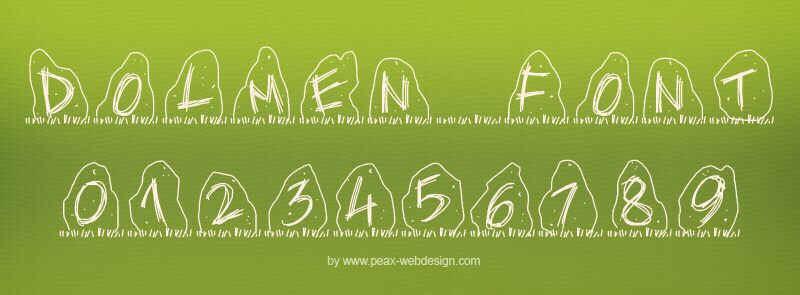
PW Dolmen by Peax Webdesign is a free decorative display font that sets each letter into a tall, irregular standing stone. The loose carved marks, scattered pits, and scratchy ground details give the alphabet the look of hand-drawn archaeological relics.
Museum activity sheets and fantasy game titles draw on the same rugged monument motif. It also suits history event posters and themed merchandise, where the stone-shaped letters can become illustrated emblems for an exhibition or product identity.